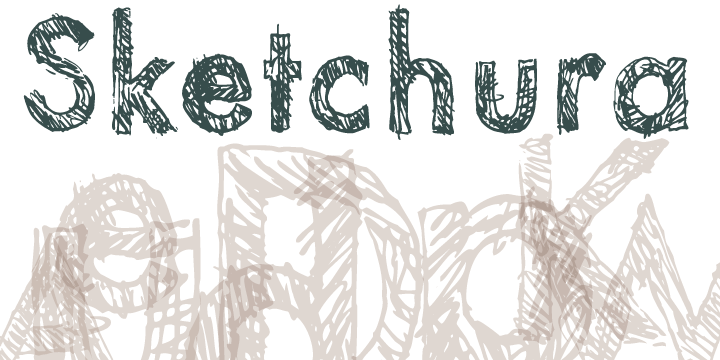
Express your creativity with Sketchura, a bold and gritty display font that's guaranteed to make a statement. Inspired by the iconic Futura font, Sketchura takes on a raw and organic twist with its hand-sketched texture, giving your designs an authentic and edgy feel.
With Sketchura, you'll have complete freedom to transform your words into captivating visuals, whether it's for captivating headlines, striking posters, or urban street art. Its versatility extends to diverse projects, including logos, branding, and social media posts, adding an instant touch of edginess and originality to your work.
Imagine the impact of your designs when paired with Sketchura. Its bold and distinct characters will grab attention effortlessly, leaving a lasting impression on your audience. Create designs that resonate, connecting with viewers on a deeper level through the font's unique aesthetic.
Sketchura's rough edges and organic strokes evoke a sense of authenticity and craftsmanship, making it ideal for conveying messages with a raw and genuine feel. Unleash your creative vision and craft designs that tell a story, conveying emotions and making your projects stand out from the crowd.